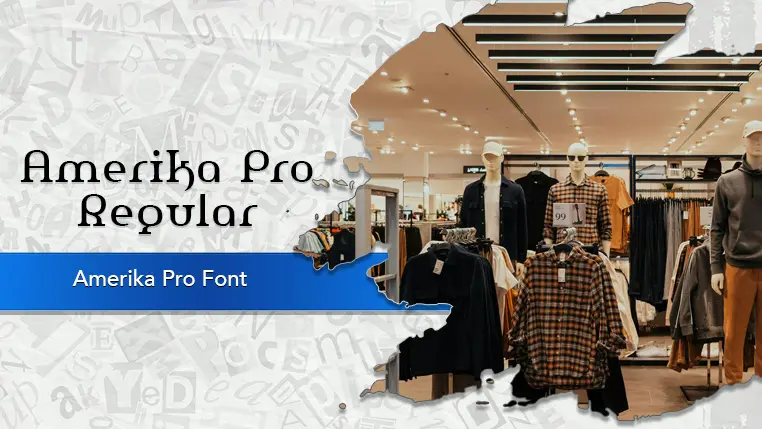
The Amerika Pro font family may be ideal for you if you enjoy working on an artistic design project. The lively, expressive look of this typeface, which was created by CheapProFonts, makes it ideal for Headlines and Titles, ts strong and unique forms make it suitable for creating memorable brand identities for Modern companies or tech startups and Fashion brands or lifestyle brands aiming for an edgy or sophisticated look. Also you can use on T-shirt designs and merchandise. and other light-hearted visual projects.
Regular are the one primary font styles of the Amerika Pro font family. You may build dynamic, visually appealing text layouts with the distinct flair that each style offers. With crisp, readable lines and a relaxed tone.